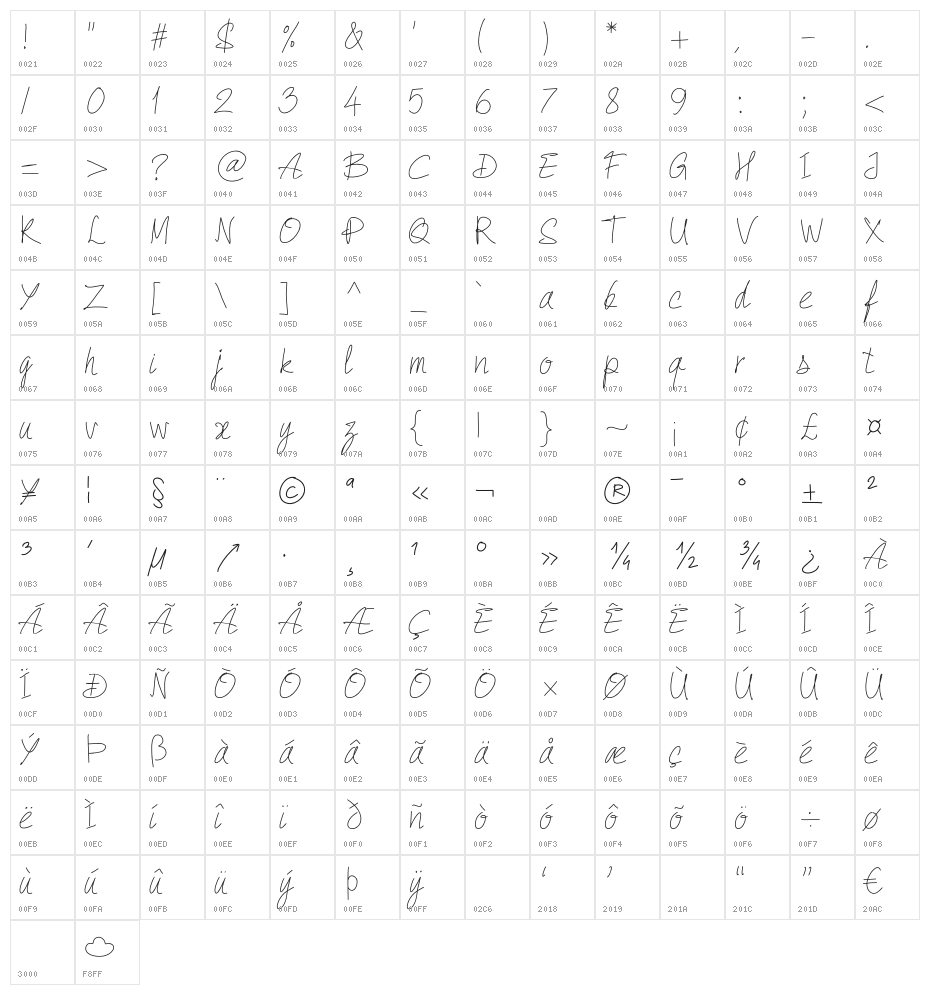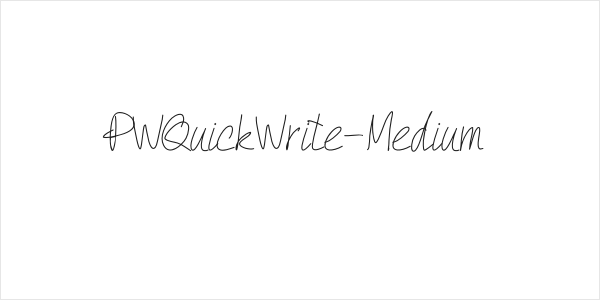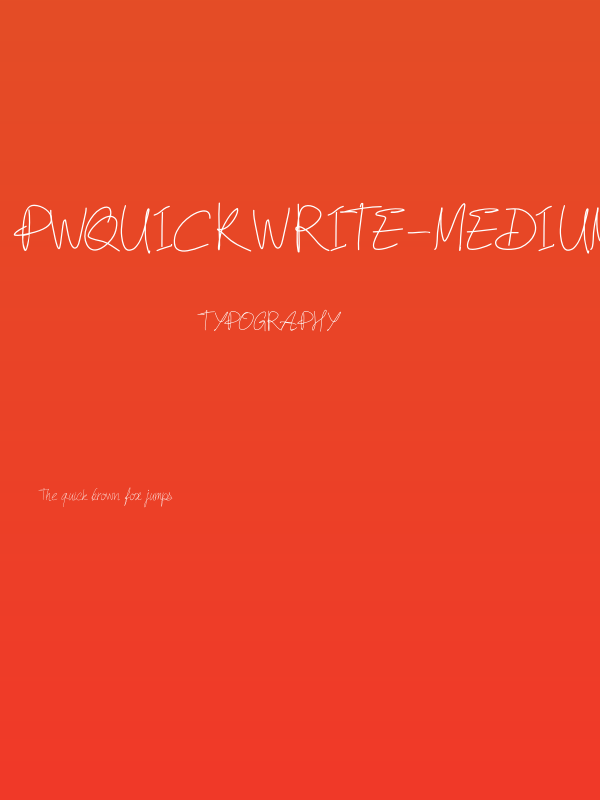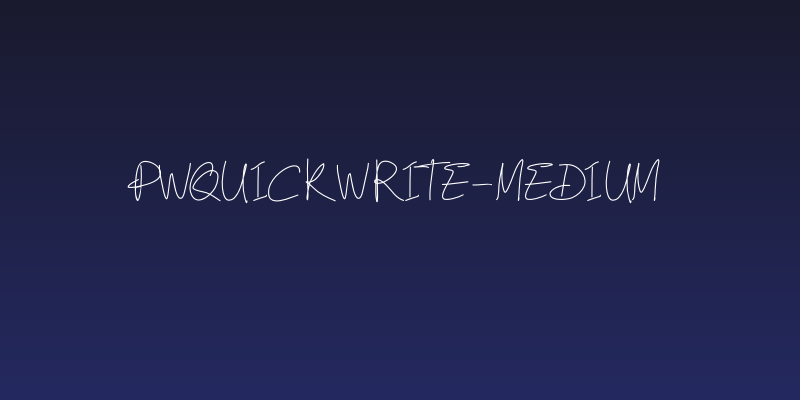
PWQuickWrite-Medium Font
PWQuickWrite-Medium Description
This font features a casual, handwritten style that exudes a sense of spontaneity and personal touch. The letters are fluid and slightly irregular, mimicking the natural flow of handwriting. The uppercase letters are tall and slender, while the lowercase letters maintain a consistent height, creating a harmonious balance. The numbers and special characters follow the same handwritten aesthetic, ensuring a cohesive look across all text elements. The strokes are thin and delicate, adding to the overall airy and light feel of the font. This style is perfect for projects that require a personal, informal touch, such as greeting cards, personal notes, or creative projects.
| Overall Style | Casual, Personal |
| Use Case | Creative projects, Personal notes, Invitations |
| Proposed Projects | Ideal for greeting cards, personal notes, invitations, and creative projects requiring a personal touch. |